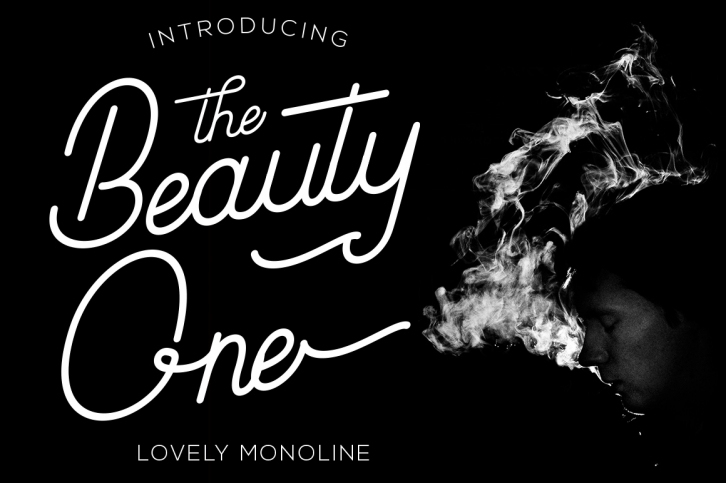
Beauty One is a trendy and unique font with an authentic style. It was designed by Attype Studio and it's a great choice for creative people who need such a font. It was released on October 5, 2018 and the file size is 17.45 MB. Beauty One will add an organic vibe to any design idea!